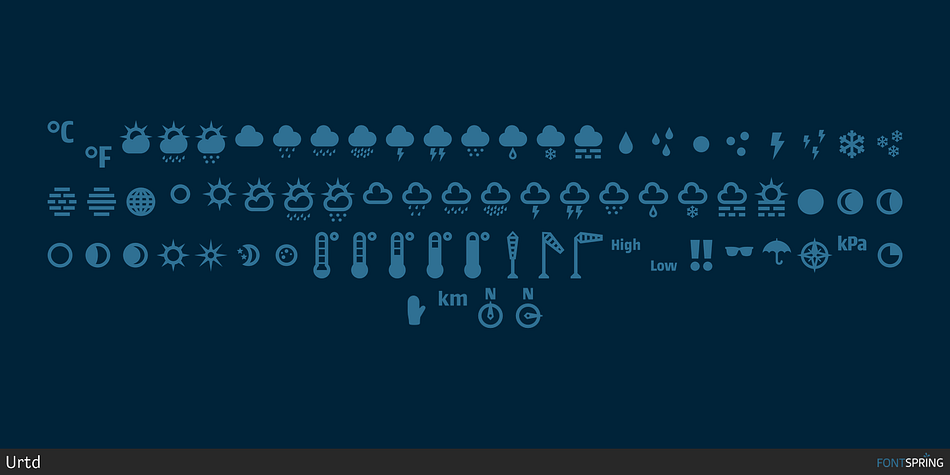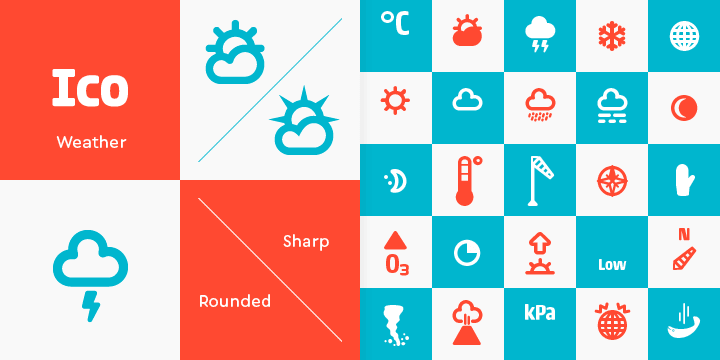
Ico Weather 2
Ico Weather is a dingbat font family. This typeface has two styles and was published by Urtd.
Ico is a set of dingbat fonts inspired by icons used on classic monochrome LCD displays.
Ico is a set of dingbat fonts inspired by icons used on classic monochrome LCD displays. The symbols are monolinear with rounded corners, composed of a smallest possible number of elements. In addition, the rounded style is accompanied by a second style with sharp corners and more detailed drawing. All symbols of Ico share the same width, making the font compatible with the LCD typeface ION C. Together, they are the perfect sollution for LCD style typography. Every Ico font contains 115 symbols. More themes are in development or planned.